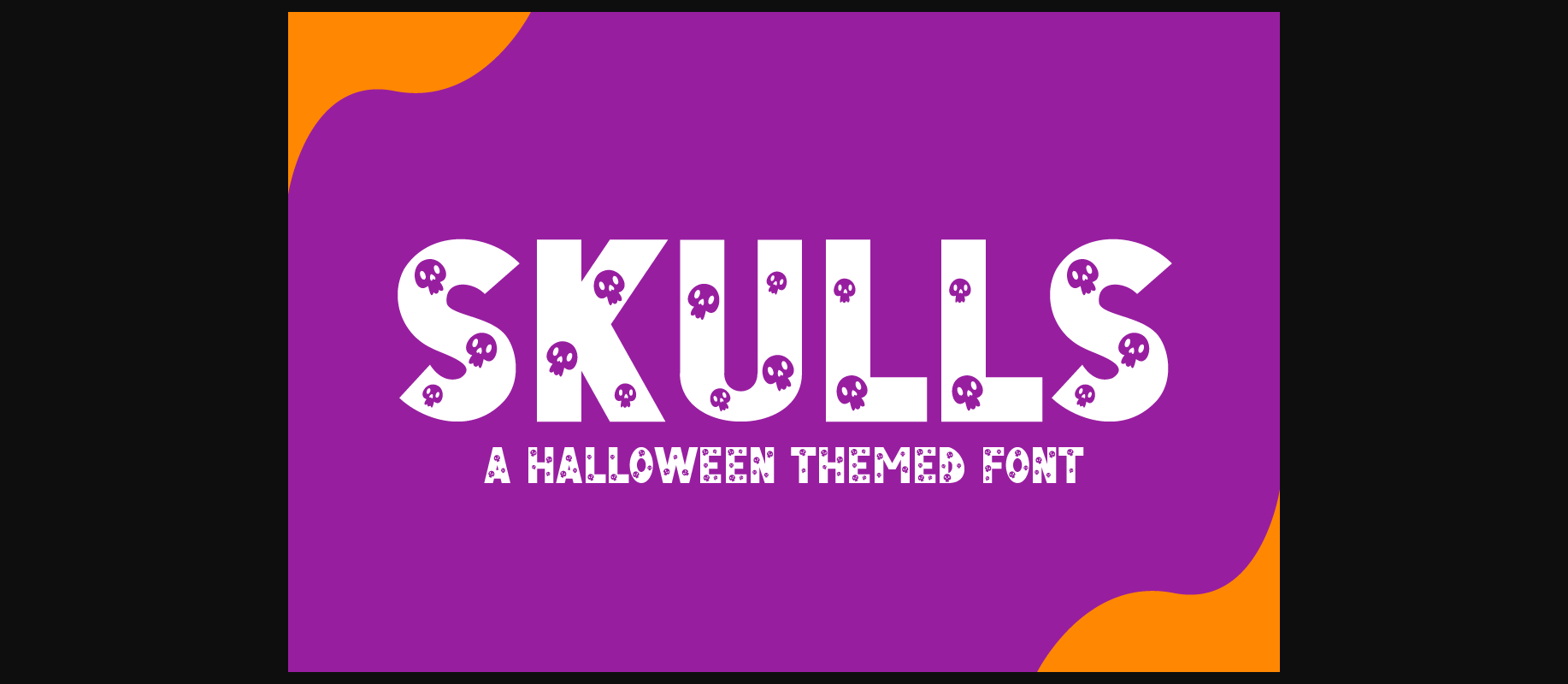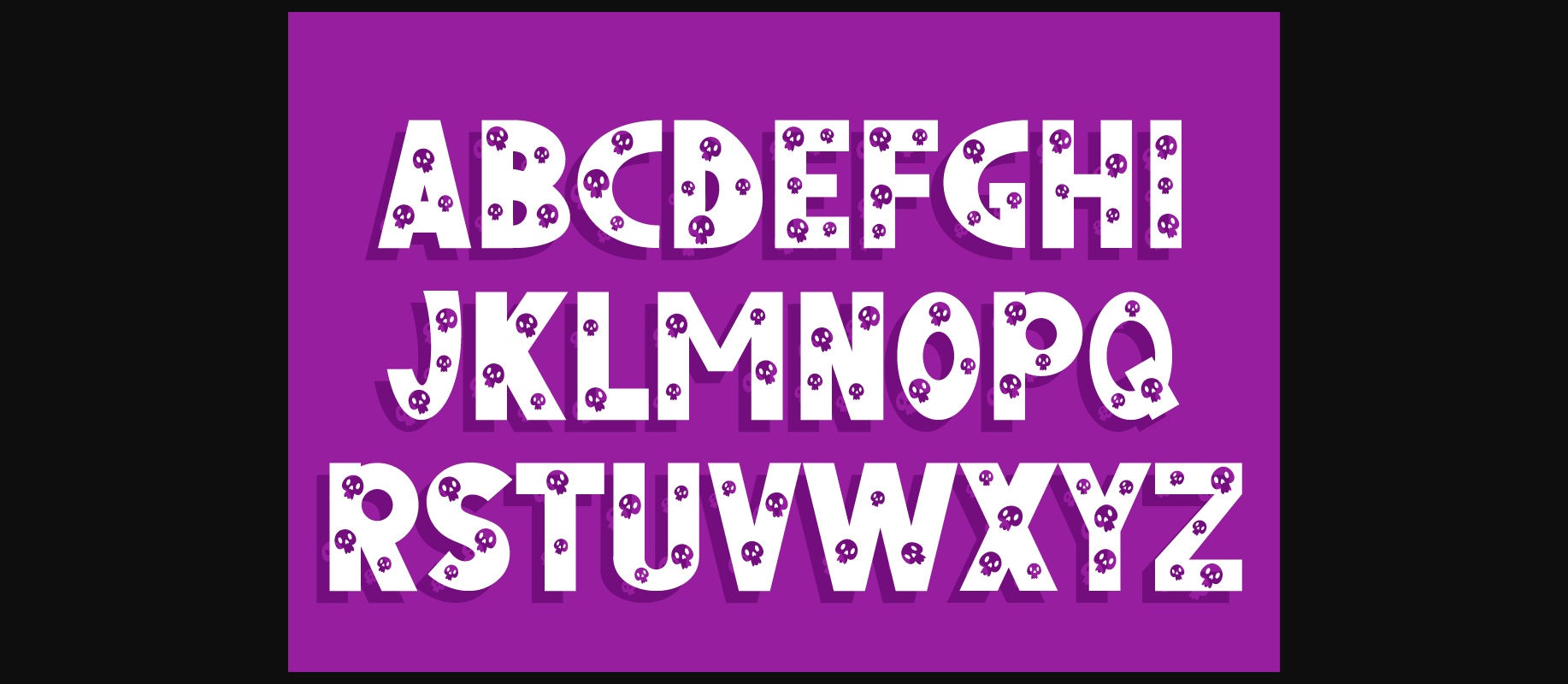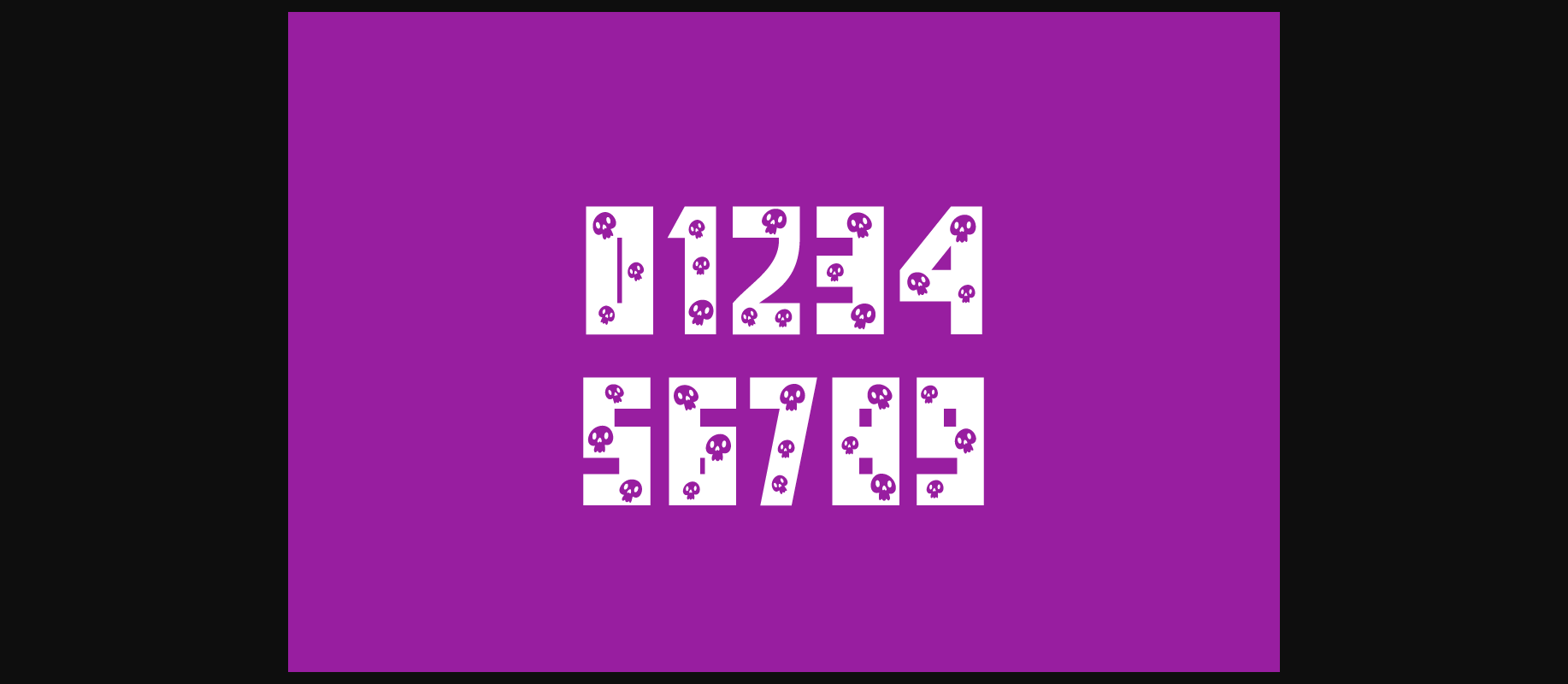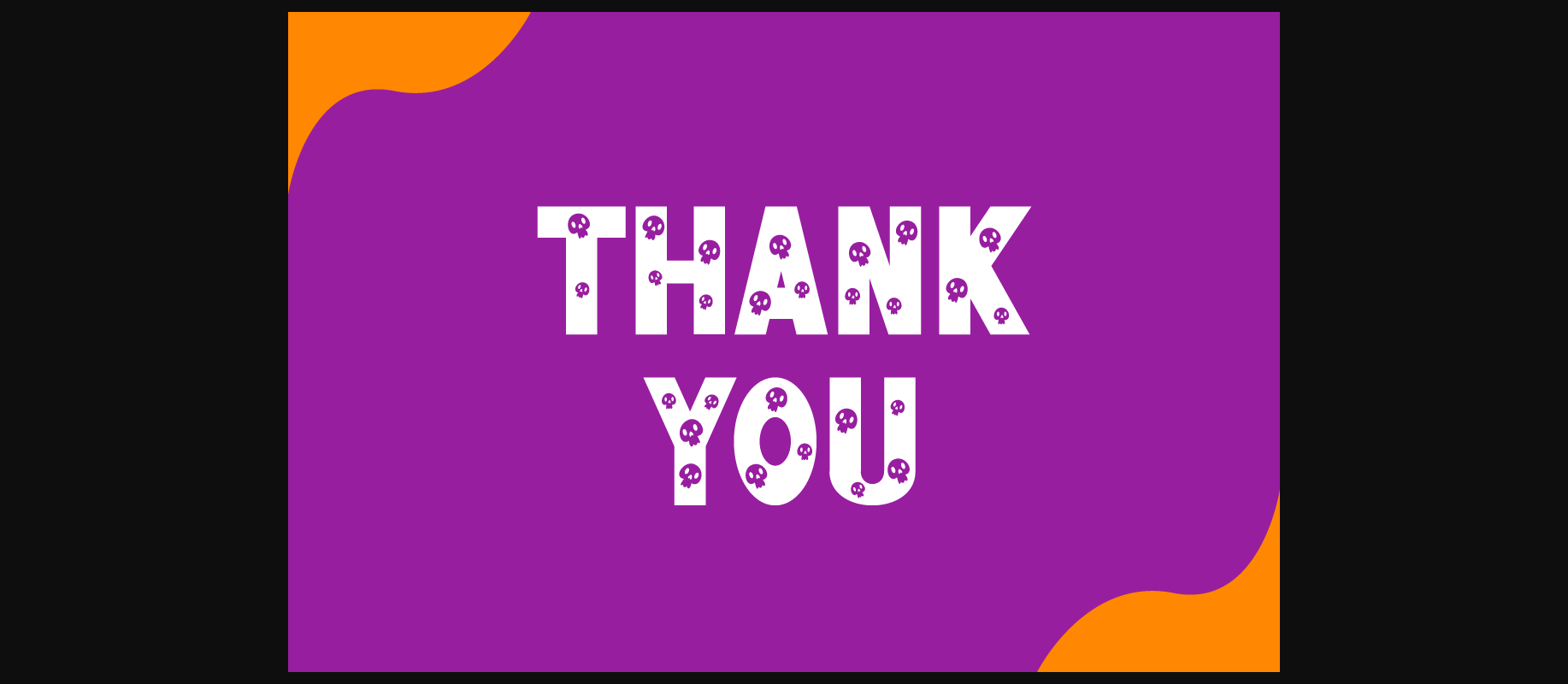
Skulls is a cool, bold and thick lettered decorative font. Add it to your Halloween crafts, horror movie posters, t-shirts and anything else that requires a spectacular look.